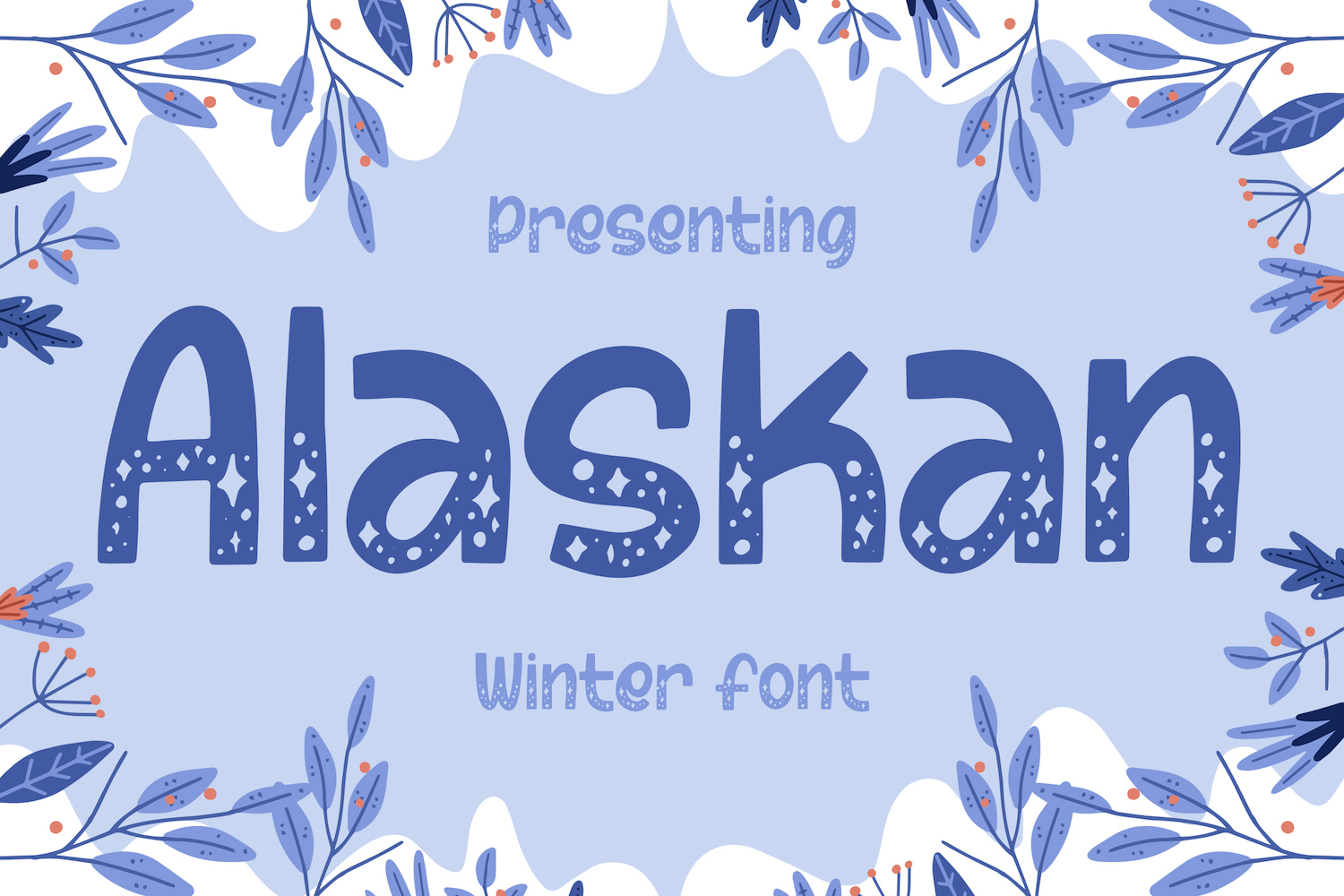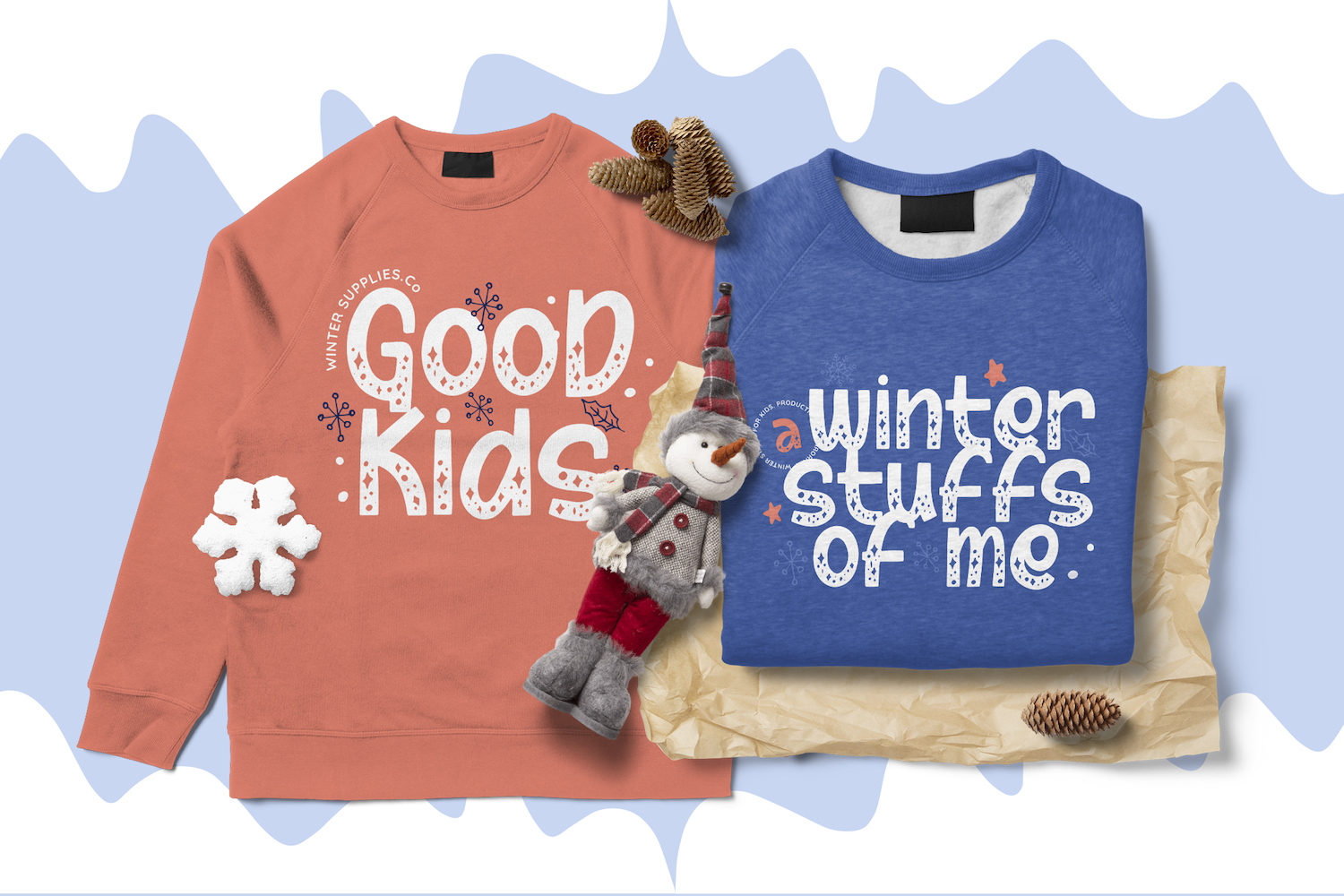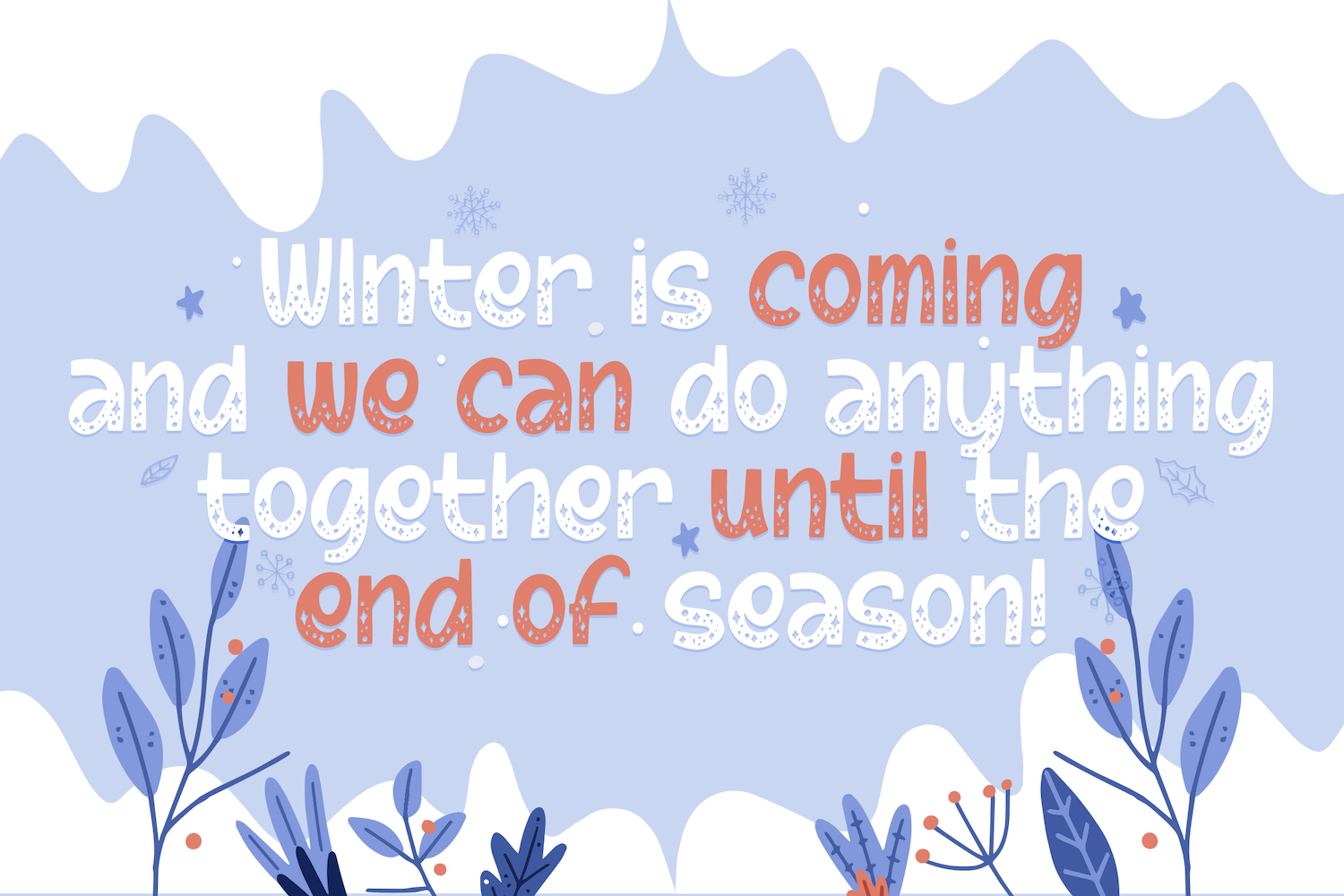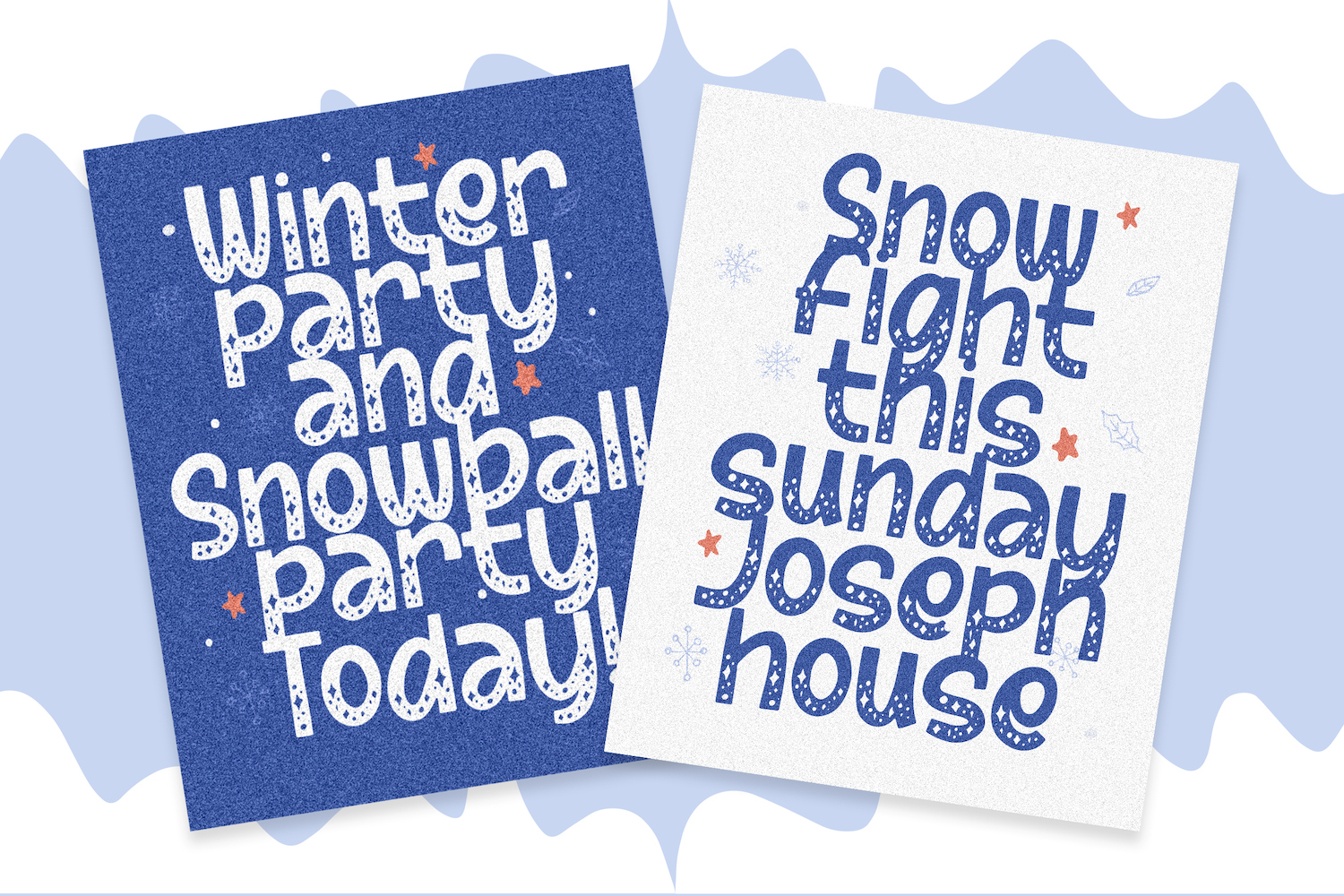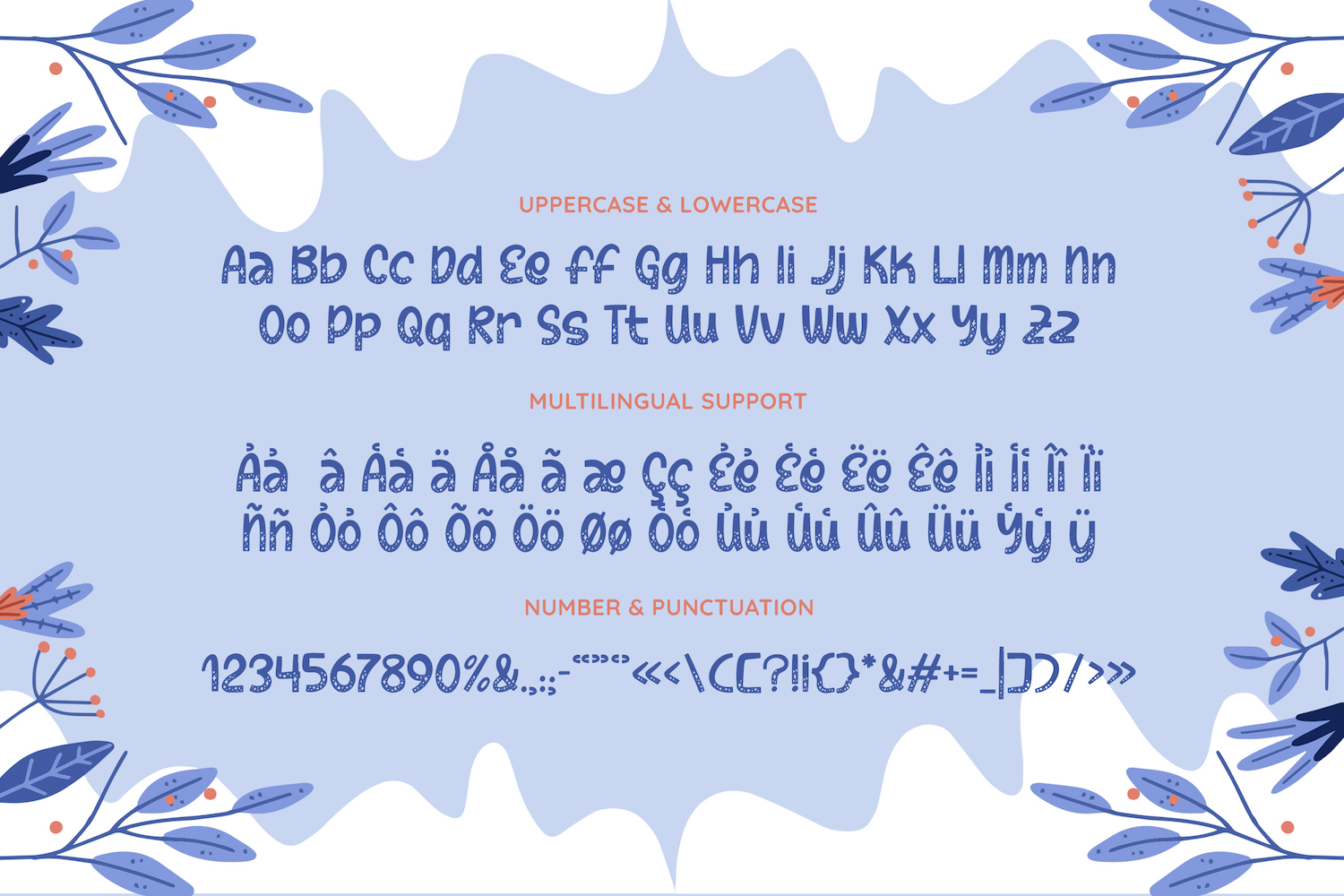
Alaskan is a playful winter-themed font that captures the magic and joy of the holiday season. With bold rounded characters and charming decorative snowflakes and sparkles embedded in the letters, Alaskan brings a cozy and cheerful vibe to your winter projects. It’s a perfect choice for holiday cards, children’s apparel, festive branding, and seasonal packaging that needs a fun and warm personality.
The font offers both uppercase and lowercase letters, multilingual support, and a full set of punctuation and numbers. Its handcrafted feel and decorative details make it stand out, especially in snowy or whimsical designs. Whether you’re designing a snowball party poster or a winter sale campaign, Alaskan delivers the perfect dose of seasonal charm.
Alaskan